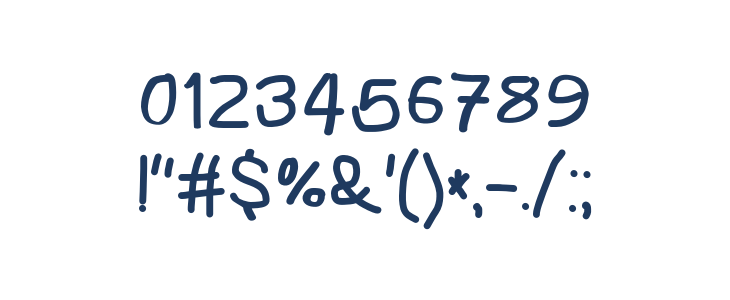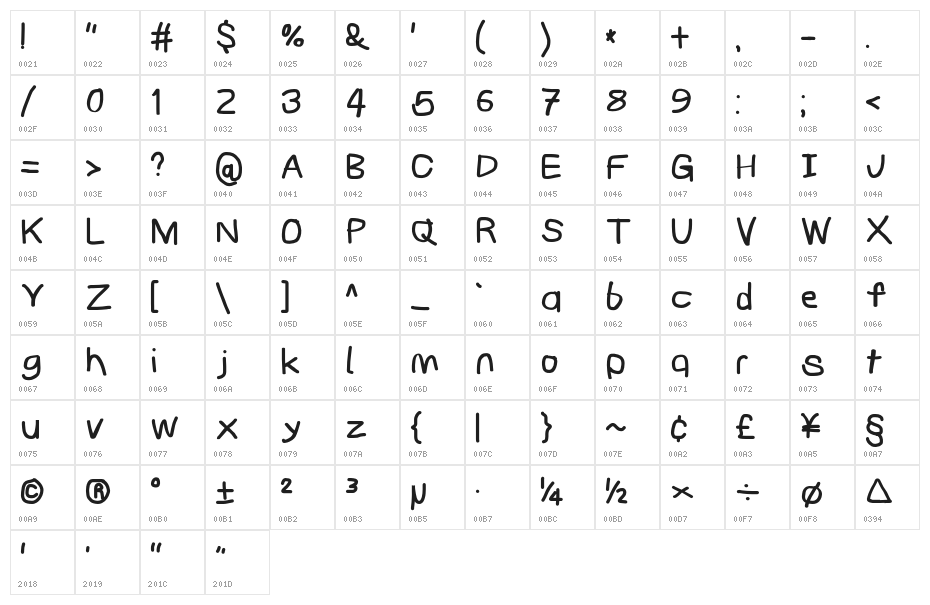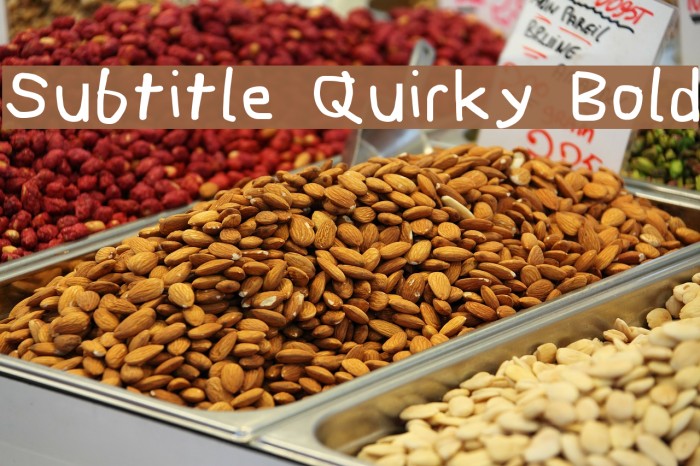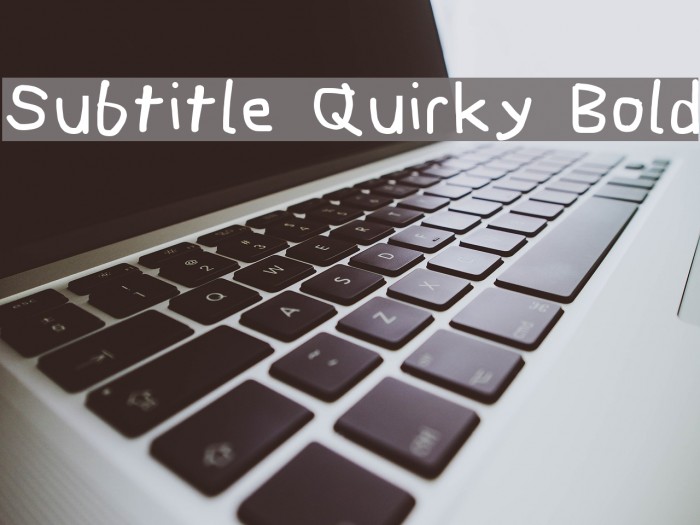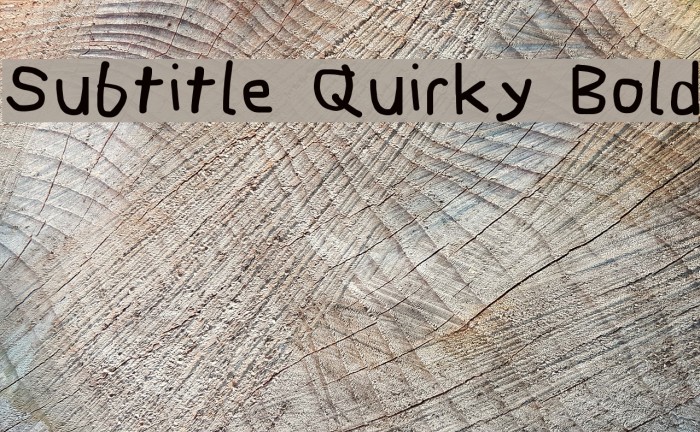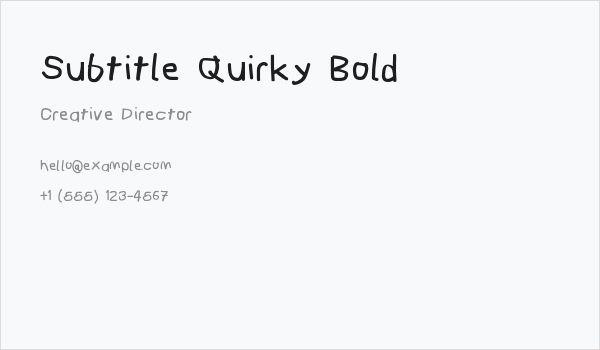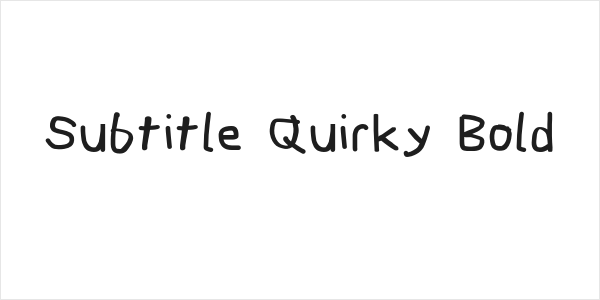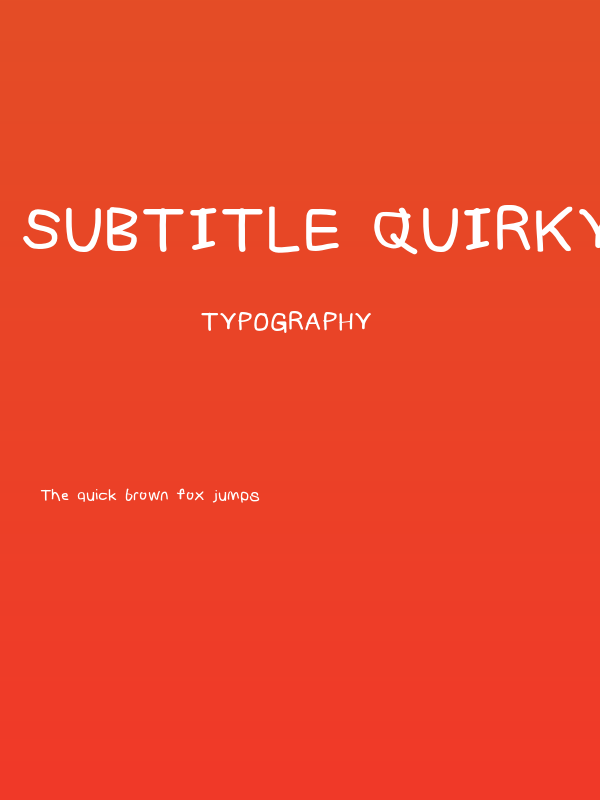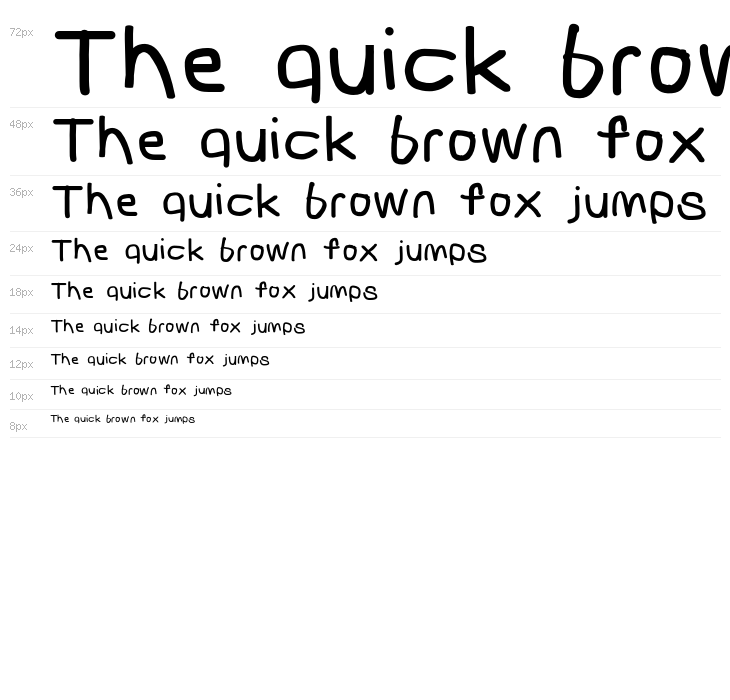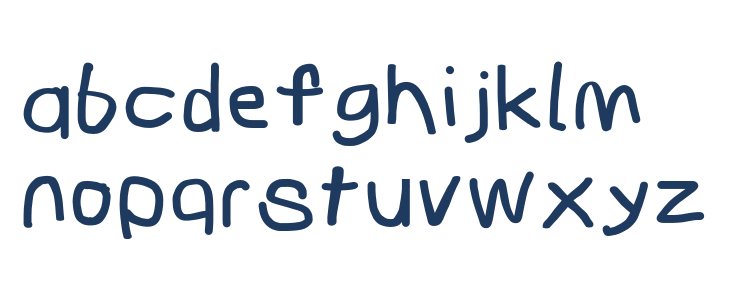
Subtitle Quirky Bold Font
Subtitle Quirky Bold Description
This font features a playful and quirky design with a bold and rounded appearance. The characters are slightly irregular, giving it a hand-drawn feel that adds a touch of whimsy. The uppercase and lowercase letters maintain a consistent style, with rounded edges and a casual, friendly look. The numerals and special characters follow the same design principles, ensuring a cohesive appearance across all text. This font's unique style makes it stand out, making it suitable for projects that require a fun and informal touch.